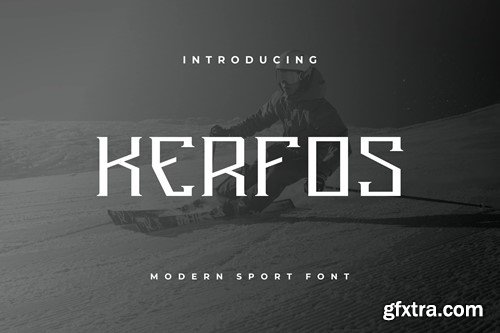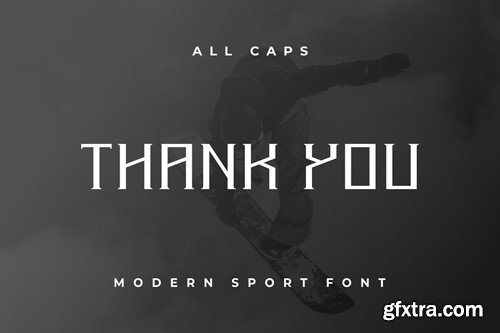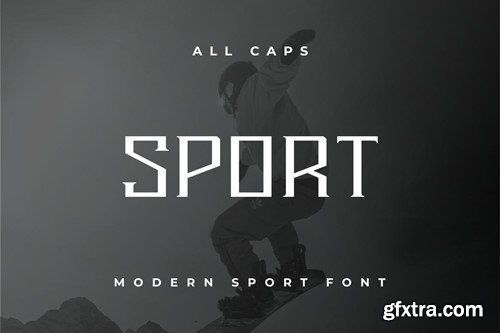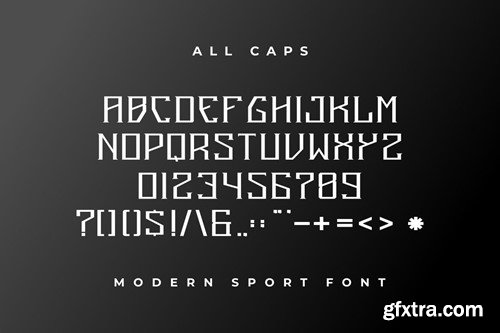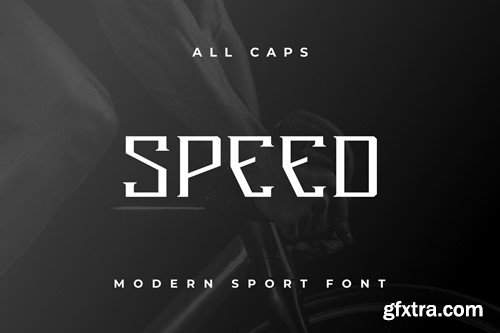
Kerfos Font
Introducing our new product Kerfos Font - Modern Font is a bold and authentic display font. The font is suitable for any branding project like logo, esport, and many more. outstanding in a wide range of contexts. availlable